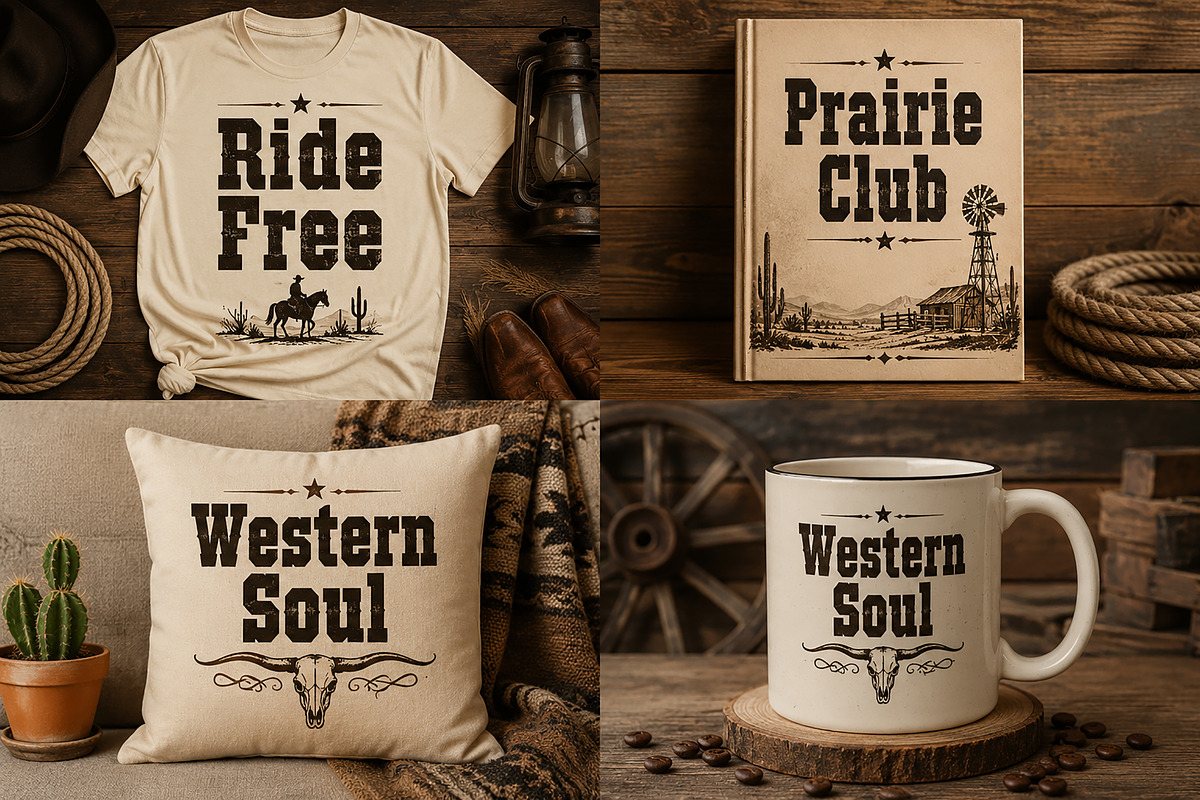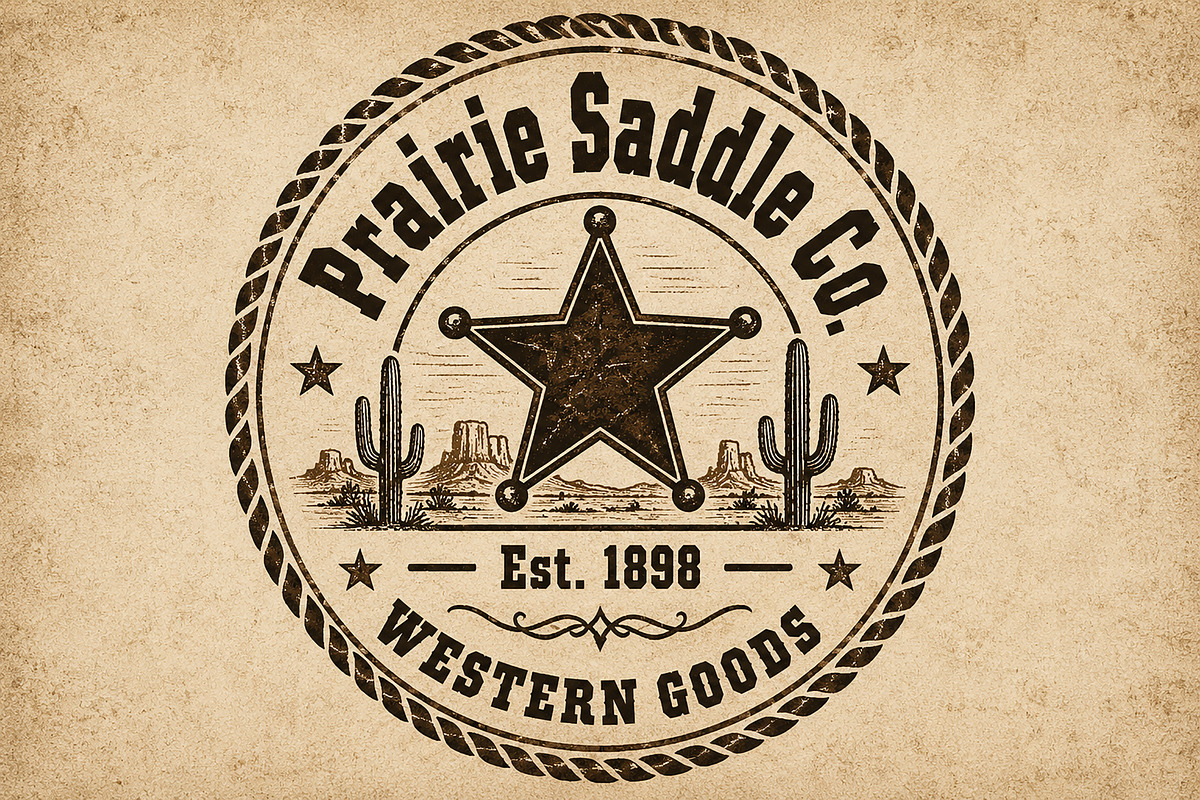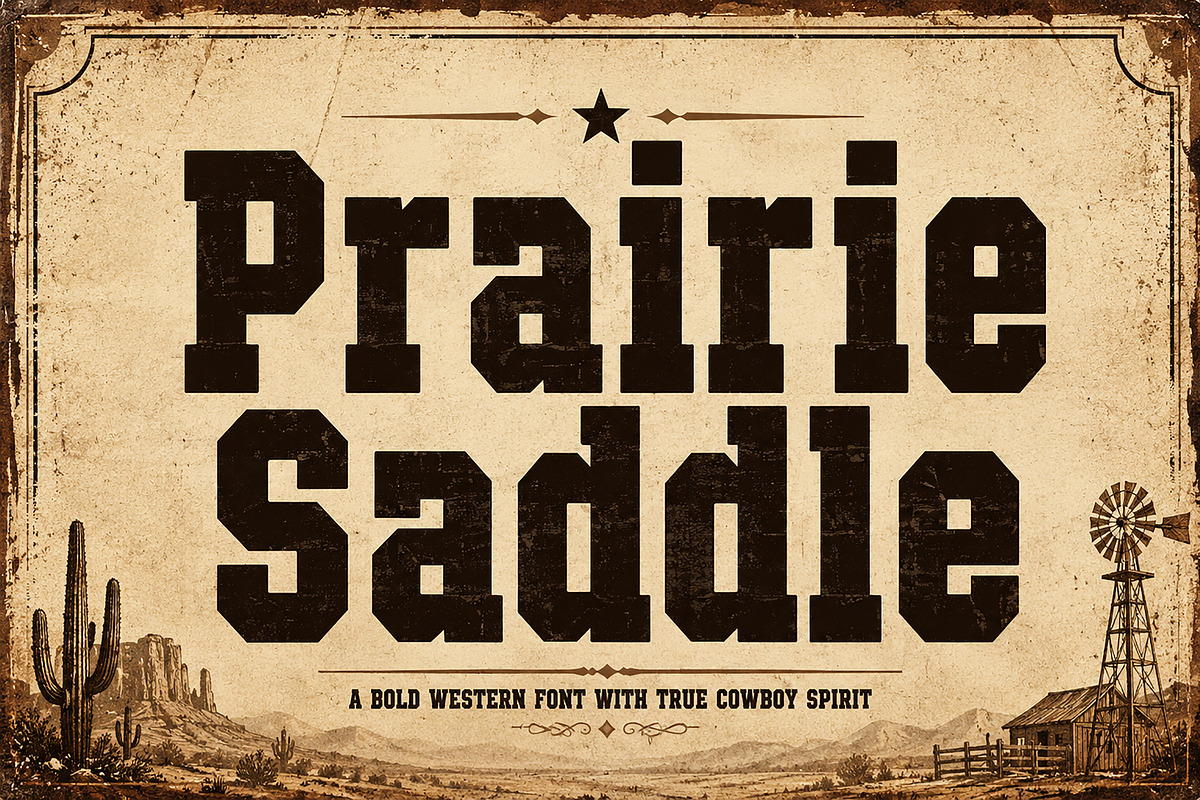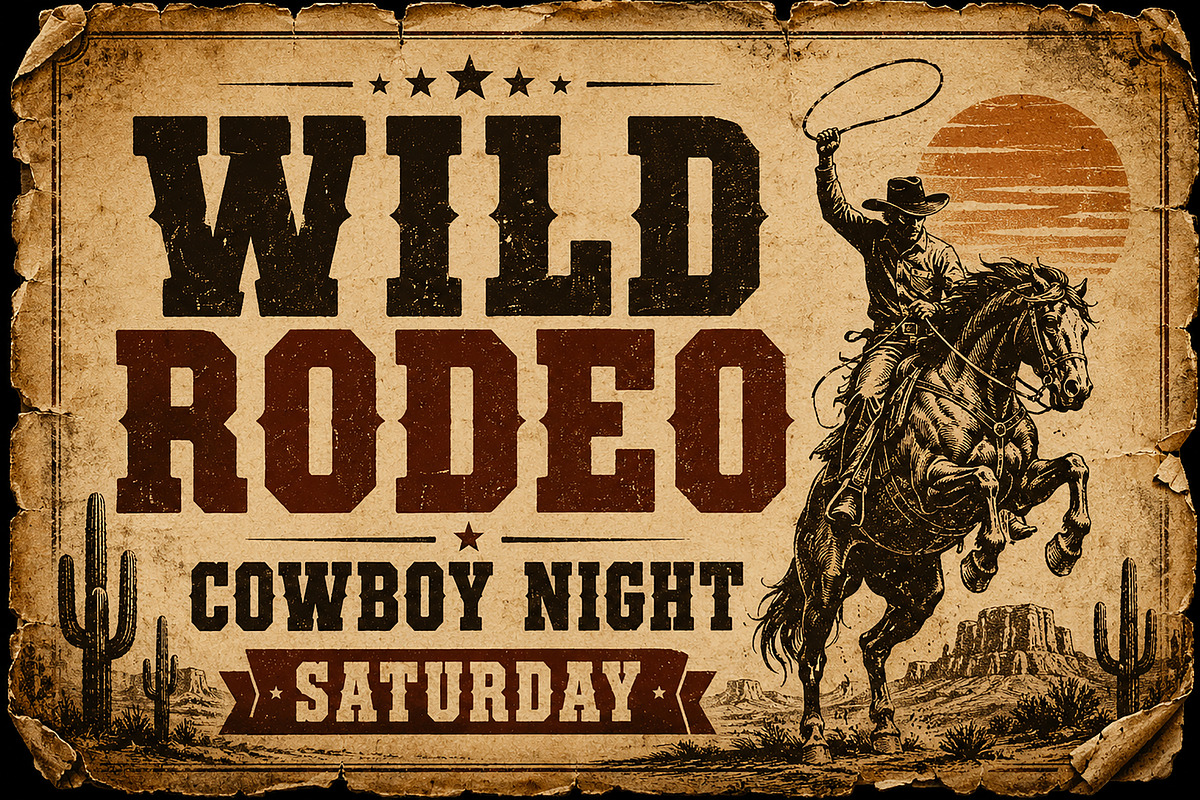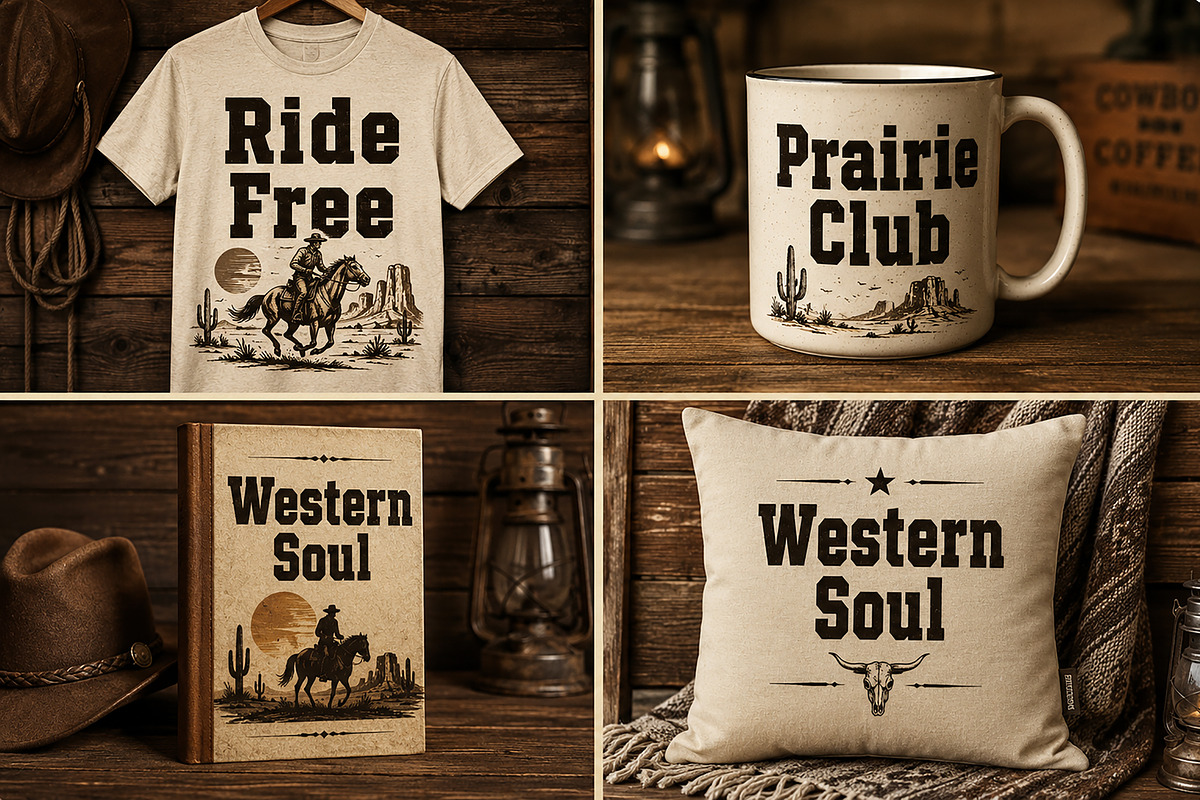
Prairie Saddle
Prairie Saddle – Vintage Western Display Font
Prairie Saddle is a bold vintage western display font inspired by classic cowboy culture, old rodeo posters, rustic ranch signs, and wild frontier branding. Featuring strong slab-style letterforms with a rugged western character, this font is perfect for creating authentic vintage designs that capture the spirit of the American West.
Whether you're designing western logos, rodeo flyers, country music posters, whiskey labels, apparel graphics, packaging, signage, or print-on-demand merchandise, Prairie Saddle delivers a powerful and timeless western look.
Its bold presence makes it ideal for headlines, branding, badges, product packaging, social media graphics, Cricut projects, t-shirts, mugs, book covers, and rustic-themed designs.
Western & Cowboy Branding
Rodeo Posters & Event Flyers
Country Music Designs
Ranch & Farm Logos
Whiskey & Beer Labels
Vintage Signage
T-Shirt & Merchandise Designs
Packaging & Product Labels
Cricut & Craft Projects
Book Covers & Editorial Headlines
Bring the spirit of the Wild West to your next project with Prairie Saddle — a bold western typeface built for authentic vintage designs.